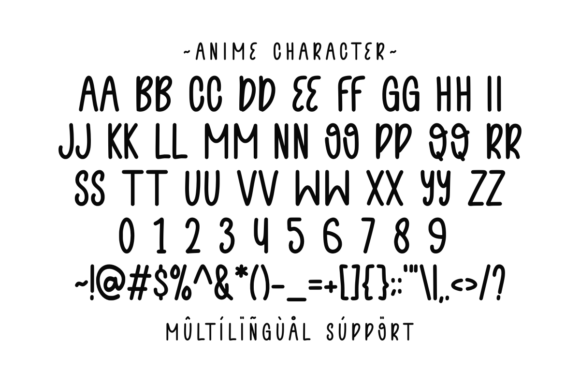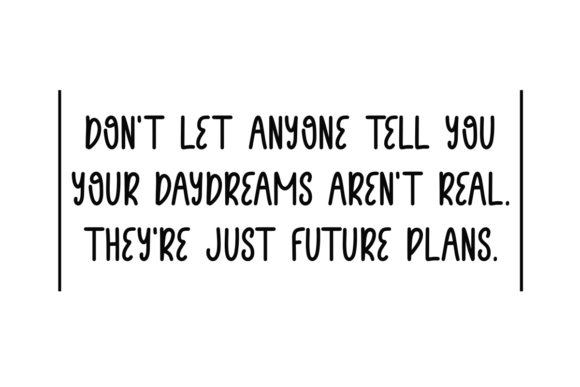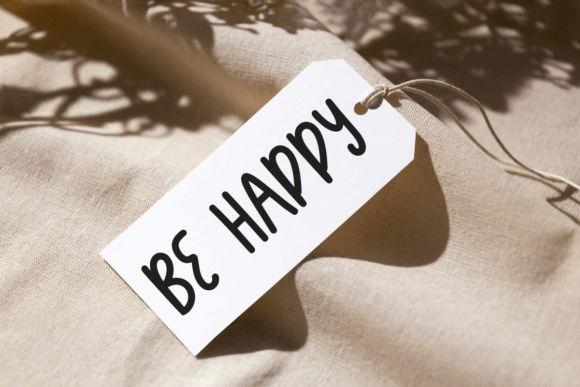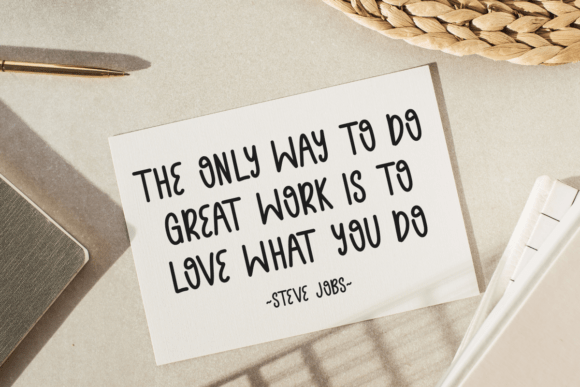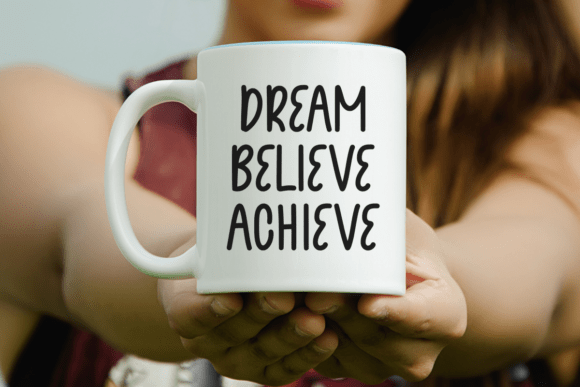
Meet Your New Design BFF: Anime Font
Have you ever been browsing through your favorite stationery store, and suddenly, you’re hit with a wave of creativity? You spot the cutest font on a sticker, and you instantly know you need to use it for your next project. That’s exactly what happened to many designers when they discovered Anime Font. This adorable sans serif font has captured the hearts of creatives worldwide with its minimalist charm.
Whether you’re designing greeting cards, wedding invitations, or gift labels, Anime Font is the perfect companion for your project. Its simplicity and playfulness make it an excellent choice for various applications, from mugs to t-shirts, quotes, and labels. What makes Anime Font truly valuable is its versatility and the ease with which it can elevate your designs to the next level.
- Unique Characteristics: Anime Font features a unique, hand-drawn design inspired by Japanese animation, with distinctive strokes and flourishes that set it apart from other fonts.
Anime Font Review
Overall, Anime Font is a quirky and eye-catching choice for those looking to add a touch of Japanese flair to their designs. ✨ Here are a few things it does well:
- Unique and playful aesthetic: Anime Font is perfect for designers who want to add a bit of whimsy to their projects.
- Customizable: With various weights and styles available, designers can experiment with different looks to suit their needs.
- Perfect for niche projects: If you’re working on a project related to anime, manga, or Japanese culture, Anime Font is a great fit.
- May not be suitable for formal or professional projects: Anime Font’s playful nature may not be taken seriously in more formal contexts. ⚠️
- Limited language support: While it works well for English, Anime Font may not be as effective for other languages due to its unique character set.
- Not ideal for small text: Due to its bold and ornate design, Anime Font may be difficult to read in smaller sizes.
In conclusion, Anime Font is a fun and creative choice for designers, but it’s essential to consider its limitations and suitability for your project before using it.
Tips for Getting the Most Out of Anime Font
Experiment with different font sizes, colors, and styles to achieve the desired effect.
Use Anime Font to add a touch of Japanese flair to your designs.
Combine Anime Font with other design elements, such as bold lines and vibrant colors, to create a visually striking effect.
Anime Font is ideal for:
Designing manga-style artwork and comics.
Creating Japanese-inspired branding and logos.
Adding a touch of whimsy to digital graphics and illustrations.
Alternatives to Anime Font for Designers
1. Pixel Font
Pixel Font is a monospaced font designed to mimic the aesthetic of old video games. It’s ideal for designs that require a retro or pixel art feel. Compared to Anime Font, Pixel Font has a more pixelated and blocky appearance, making it better suited for designs that need a bold, nostalgic look.
2. Comic Sans MS
Comic Sans MS is a sans-serif font designed to mimic the look of hand-drawn comic book text. It’s often used in designs that require a friendly, approachable tone. Unlike Anime Font, Comic Sans MS has a more rounded and casual appearance, making it better suited for designs that need a relaxed, conversational feel.